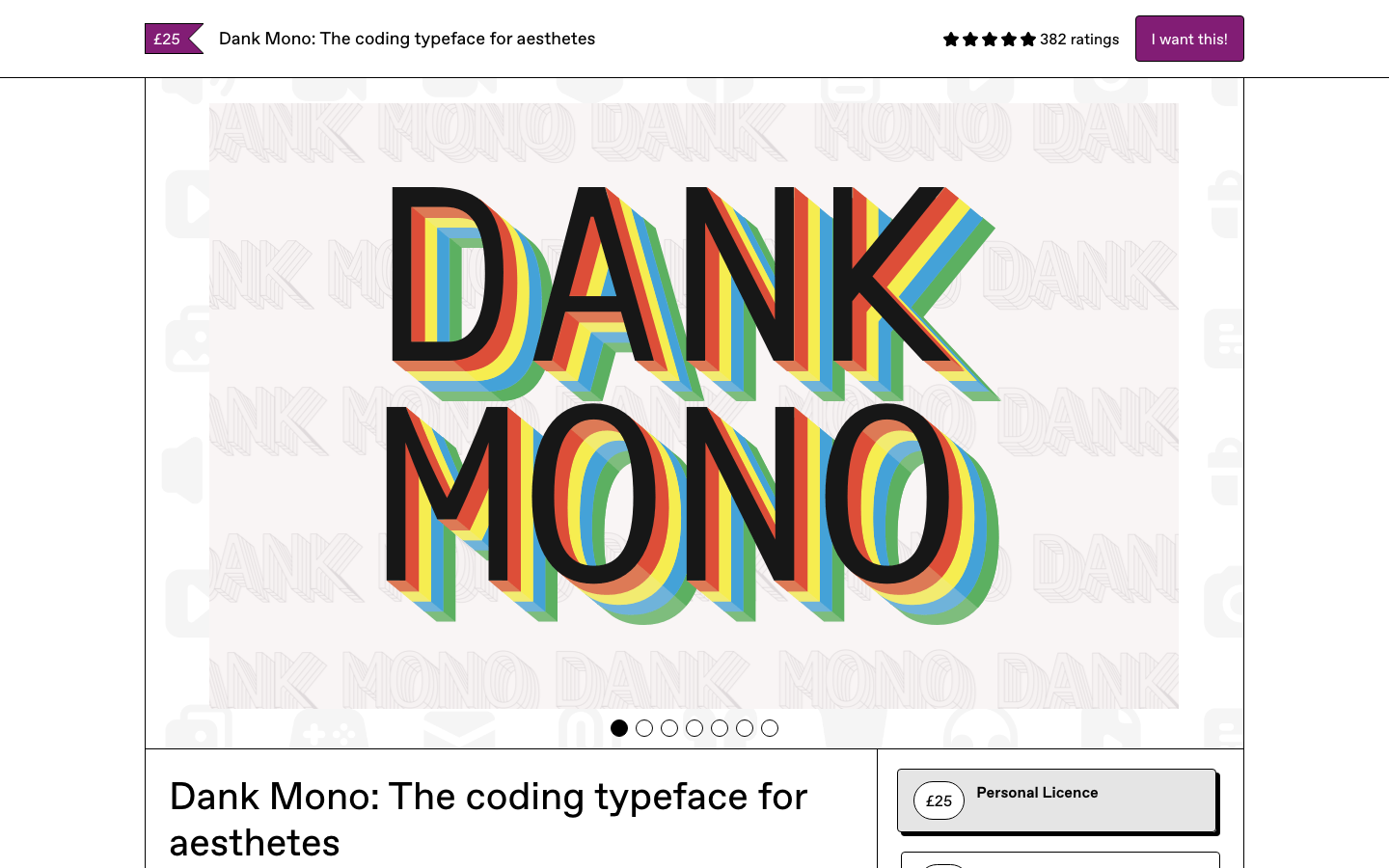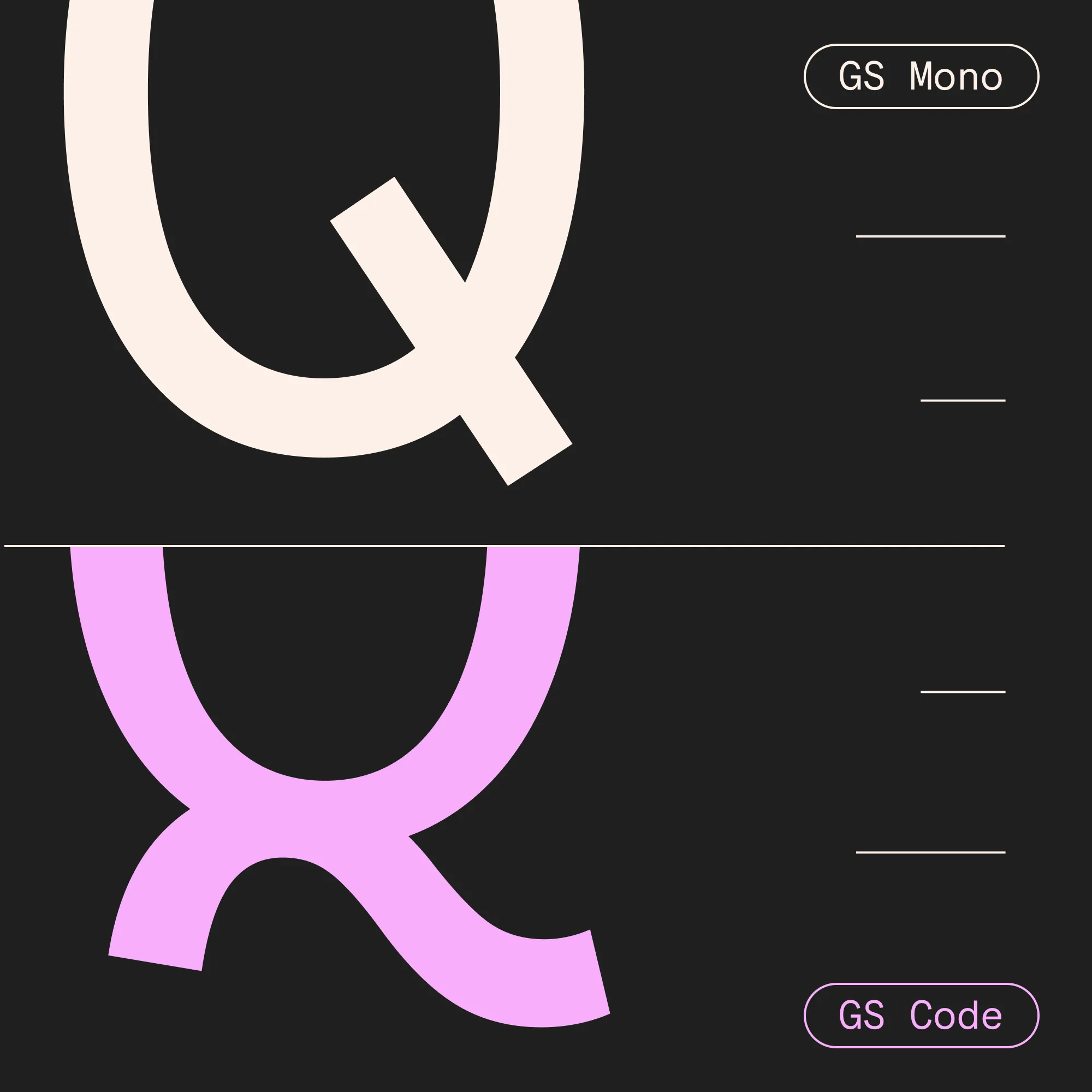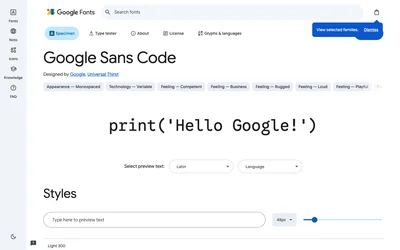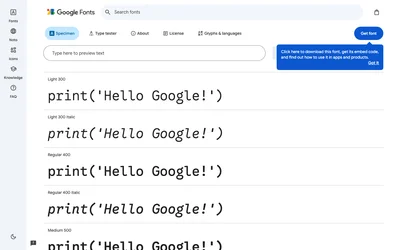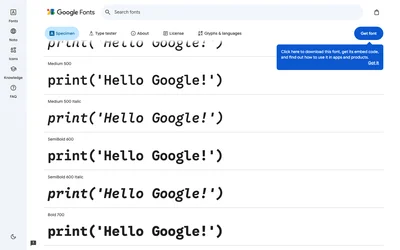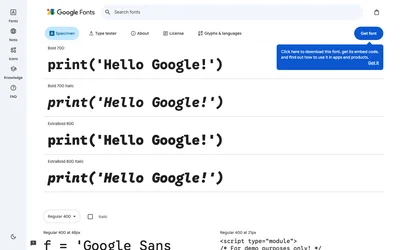
Dank Mono vs Google Sans Code
Dank Mono and Google Sans Code are both mono typefaces sharing a monospace foundation. Where Dank Mono leans script, Google Sans Code brings tech, code. Compare which suits your Terminal project.
| Feature | Dank Mono | Google Sans Code |
| Classification | mono | mono |
| Variable Font | No | Yes |
| Weights | Multiple | Variable |
Recommended: Dank Mono
- script design character
- Suited for Code Editors and Developer Tools
Consider: Google Sans Code
- tech, code design character
- Suited for Coding and Ui
- Available as a variable font